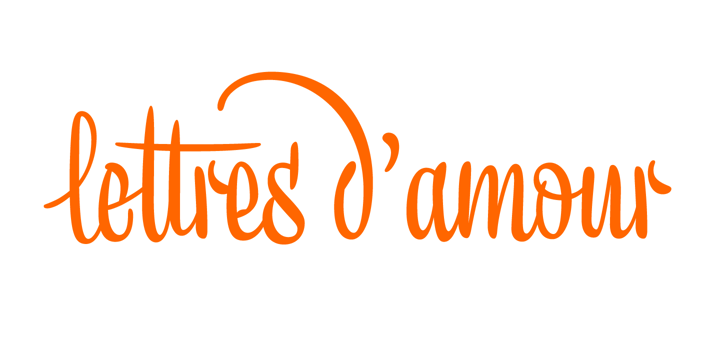
Liza Pro
Liza™ Pro
by Underware
Liza Pro Font Family was designed by Bas Jacobs, Akiem Helmling, Sami Kortemäki and published by Underware. Liza Pro contains 5 styles family package options.
Lettres d’amour! Flirting, fashionable, provocative, emotional, casual, moderate, extremely sensible & beautiful - Liza Pro covers it all. Liza Pro, Underware’s dear creation, is a live-script typeface. Thanks to its extremely intelligent OpenType architecture, she approaches human hand lettering as closely as technically possible. Liza Pro deeply analyzes the text. Out of a stock of 4000 hand crafted characters, Liza creates the most optimal combination. All of this works automatically. All you need to do is start typing your lettres d’amour, and Liza makes the text always look different. She gives your creative piece the impression par excellence. Erotique mais intelligent. She is as clever as we could imagine. She kept all folks at Underware busy for a couple of years. It all started one rainy night back in May 2004 but quickly changed into a fatal affair exceptionnelle. But now, 5 years later we are quite sure: this is something serious. Yes, we are talking about real love. L’amour pour la vie. Liza Pro has Underware’s world-dominating Latin Plus character set, supporting a total of 219 languages (Latin 1 + 2 and beyond). Liza Pro is a package of 4 fonts which work together. Liza Display Pro rocks the script lettering to the max. The build-in Out-of-ink feature, LetterSwapper and Protoshaper makes this font a realtime-digital-calligrapher. She’ll swash up your text drastically, giving long strokes, loops and swashes to letters if their context allows. Liza Text Pro has a more silent, moderate character - she’s well behaving sister of Liza Display Pro, designed to walk long pieces of text in a lively script style. Liza Caps Pro adds more possibilities and functionality to these two script fonts. It bridges the gap in case running script lettering doesn’t do the job, but it also works perfectly on its own. Every capital letter appears in various shapes to obtain the manual lettering feeling. Liza Ornaments Pro is for extra delicatesse et est plus charme. Four heart winning fonts, pour la langue l’amour!